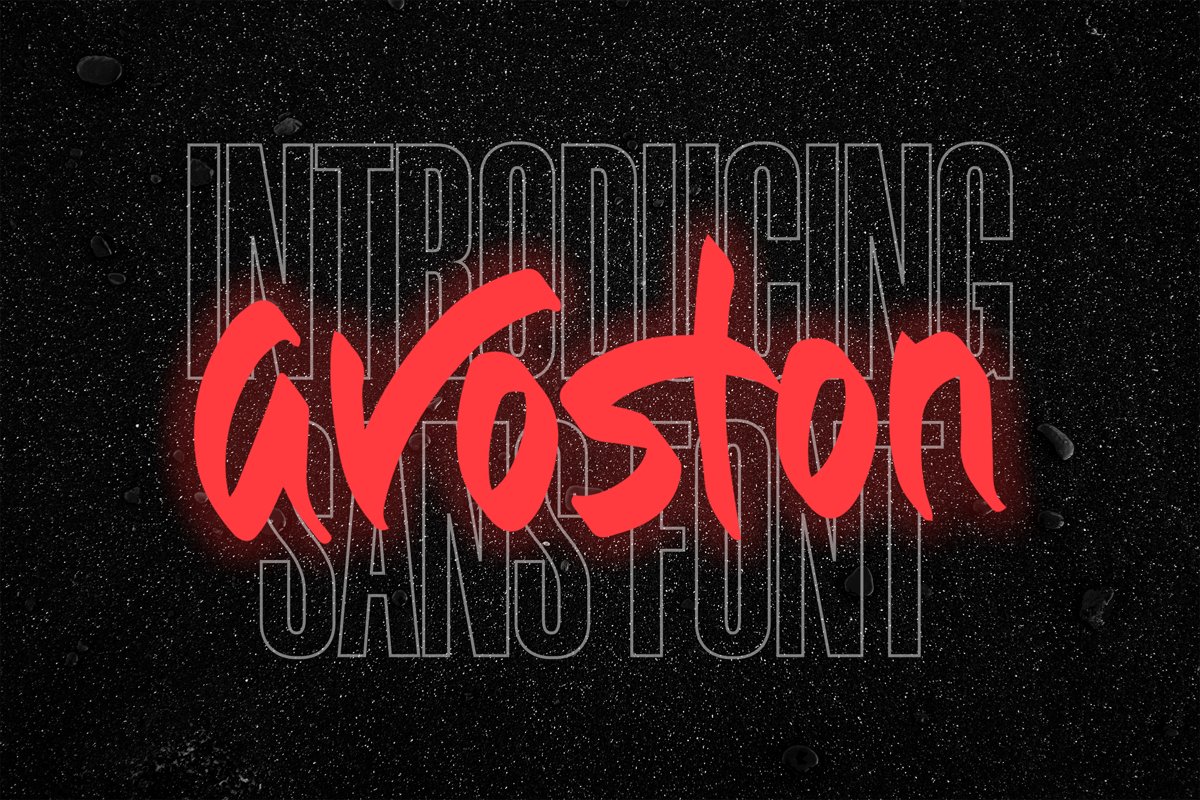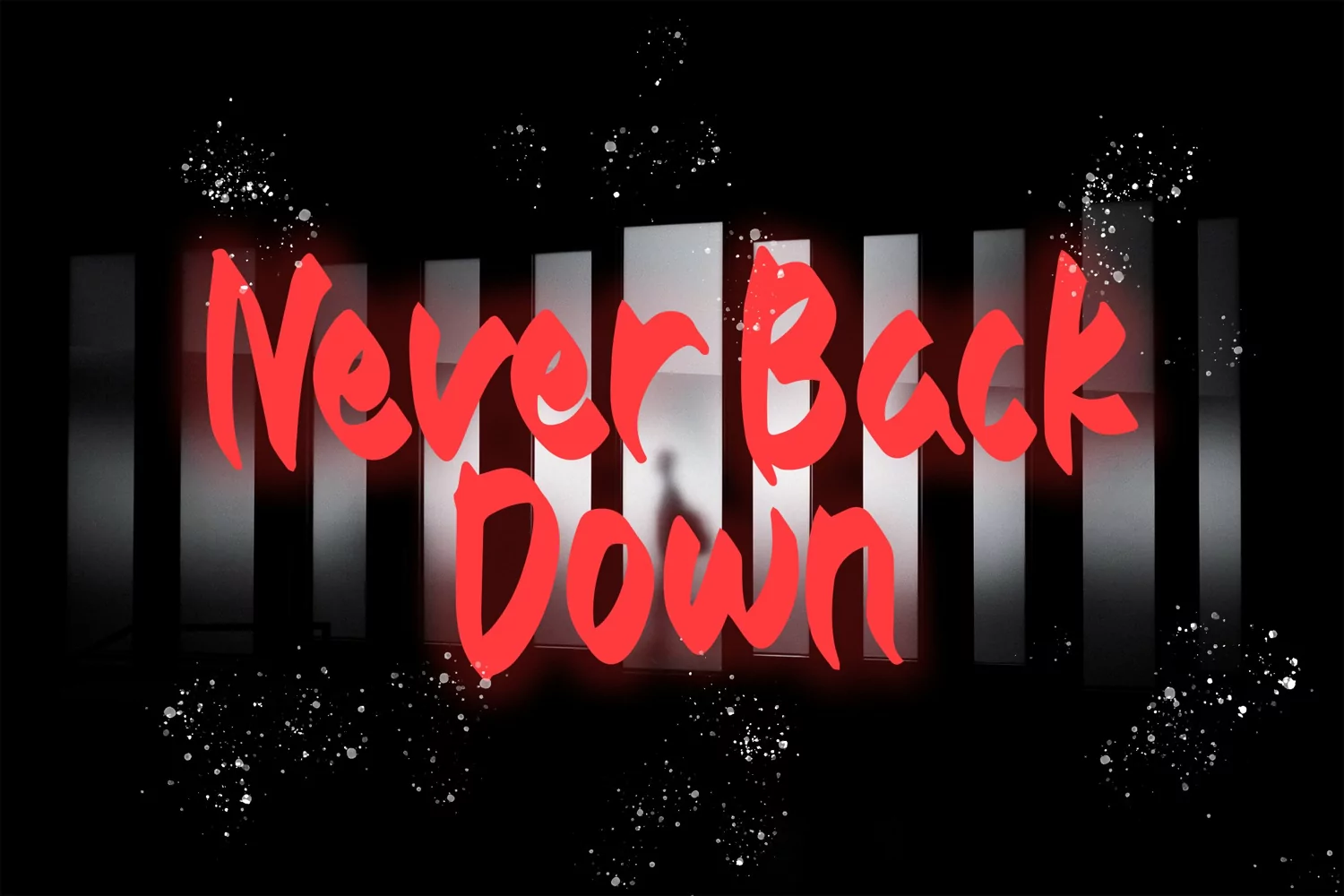
Avoston - Sans Font that contain lowercase, uppercase, symbol, and also support multi language. There’s a lot ligatures in this font. This Font also comes with ligatures, alternates and many more. this font suitable for fashion, branding, catalog and other design what you want.